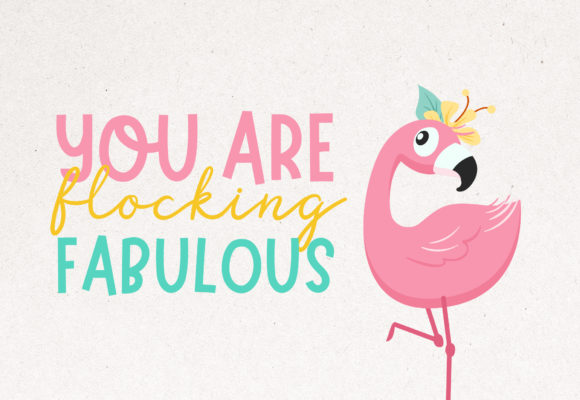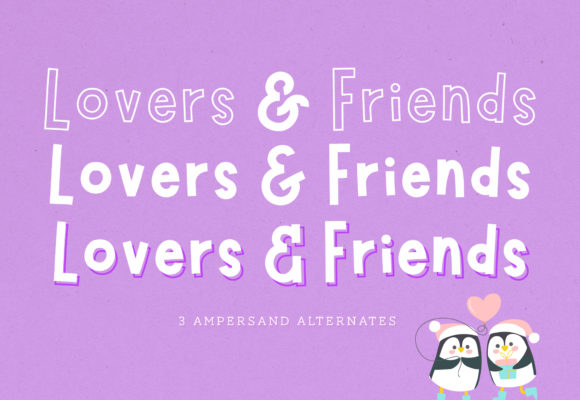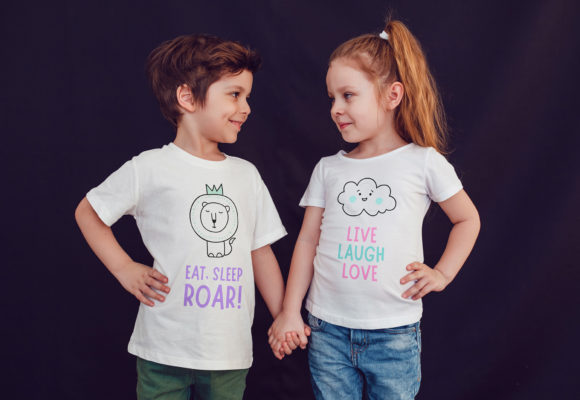
Marykate Font
The Marykate is a playful yet versatile font duo. It comes with a set of solid and outline font files, perfect for any design & craft project!Ideal for quotes, home decor, wedding invites, blog header, branding, t-shirts, posters & more!